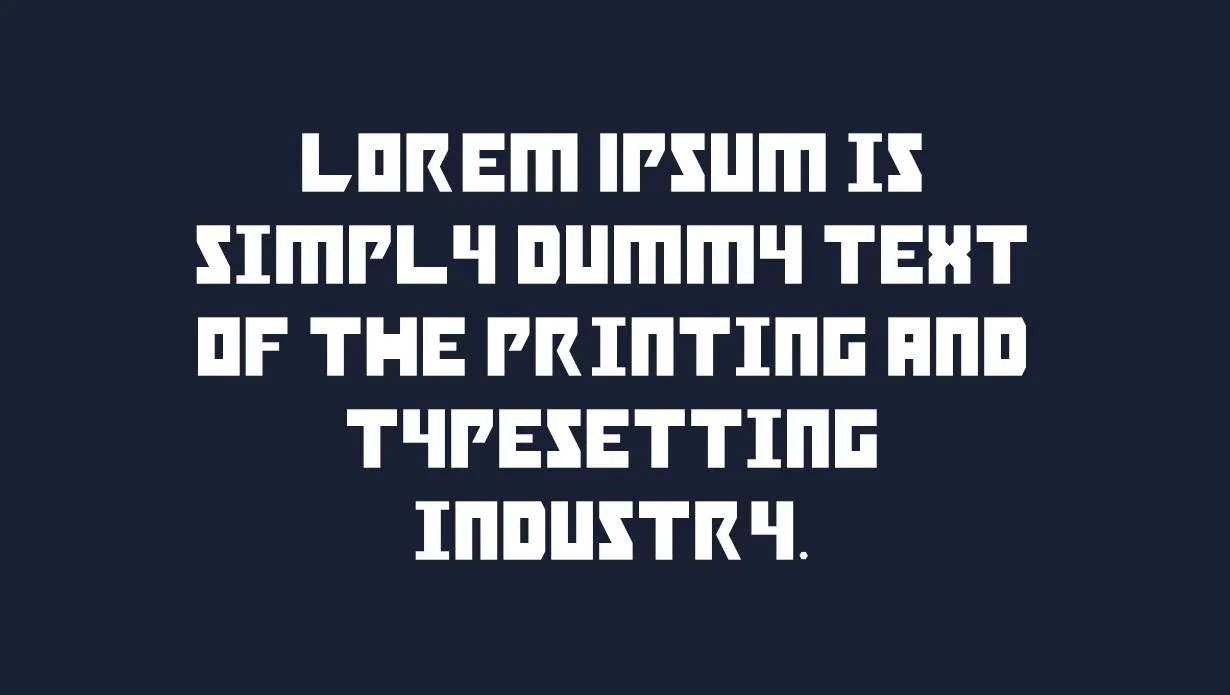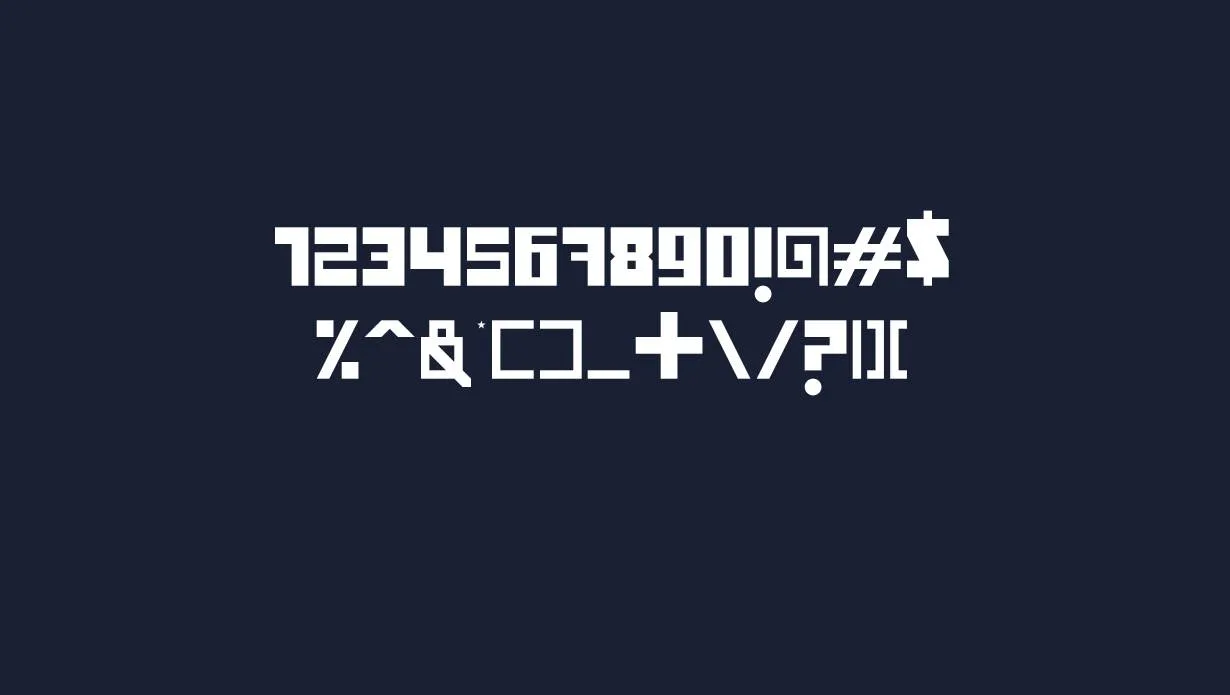
Booyakasha Font is a techno font that was designed by Jason Muriithi Kiama and is available in both OpenType and TrueType formats.
The word “Booyakasha” means high glory and love to the very moment. This unique font style is inspired by the Nickelodeon teenage mutant Ninja Turtles name.
It also includes stylish and bold uppercase, numbers, punctuations, symbols, signs, and some special characters. You can utilize this font with tesla font for attractive results.